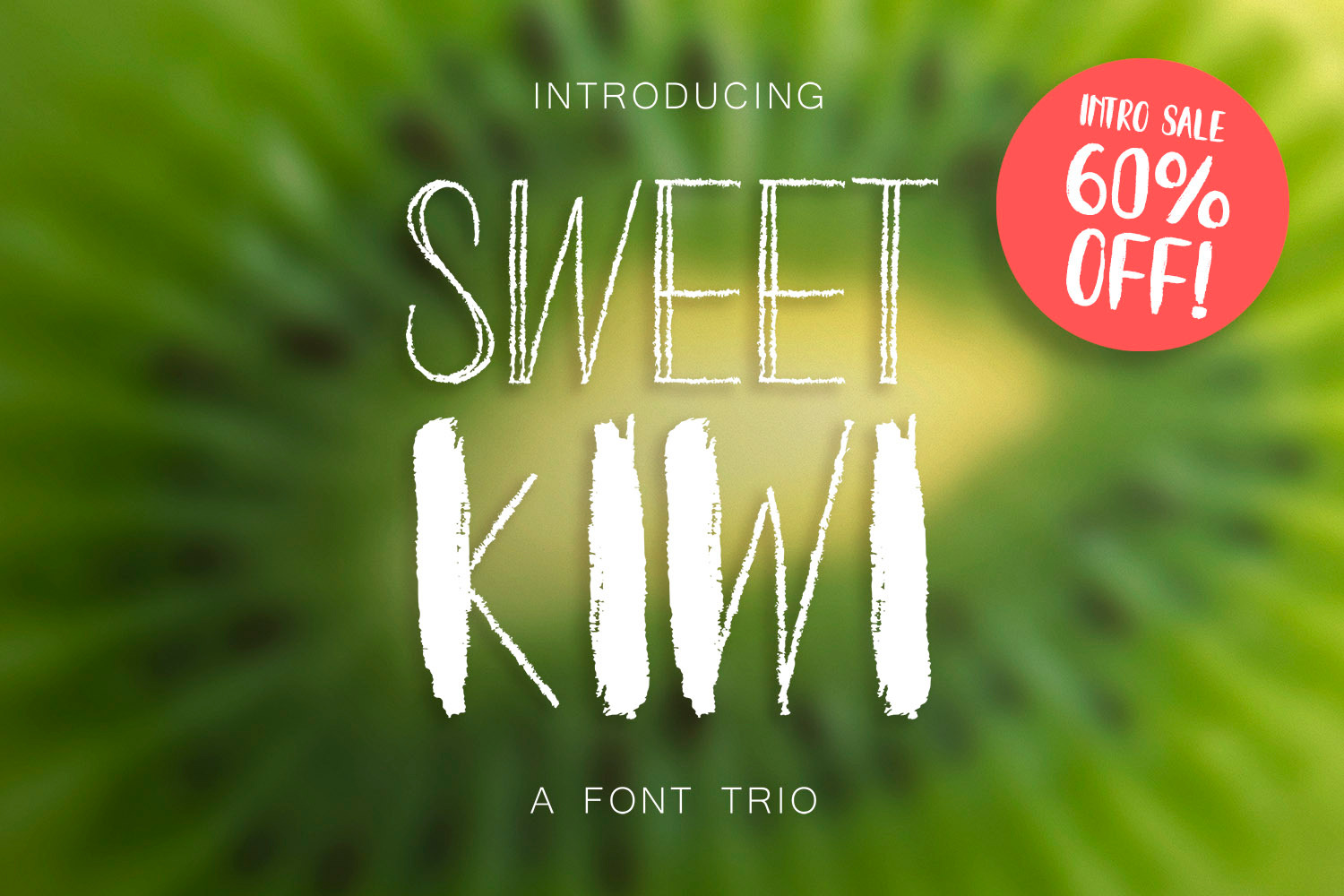
Introducing the fresh and versatile Kiwy : a family of 3 fonts made from real brushes. Use it on titles, headers, product packaging, branding, stationery, invitations prints, or as text overlays. Includes multilingual support.
Choose from Kiwy Base, Rough or Skinny.
Kiwy Base mixes both thin and thick brush strokes to create a tempered font that has a classic quirky charm to it, not as fearless as its sister Kiwy Rough, and not quite as structured as Kiwy Skinny.
Kiwy Rough is an inspiring grunge font that will help your more free spirited projects stand out on their own, with its bold brush strokes and rough edges, this variation will definitely bring personality to each one of your designs.
Kiwy Skinny is ideal for more sophisticated purposes. With its straight double lines, this font will go smoothly in any clean and polished context.